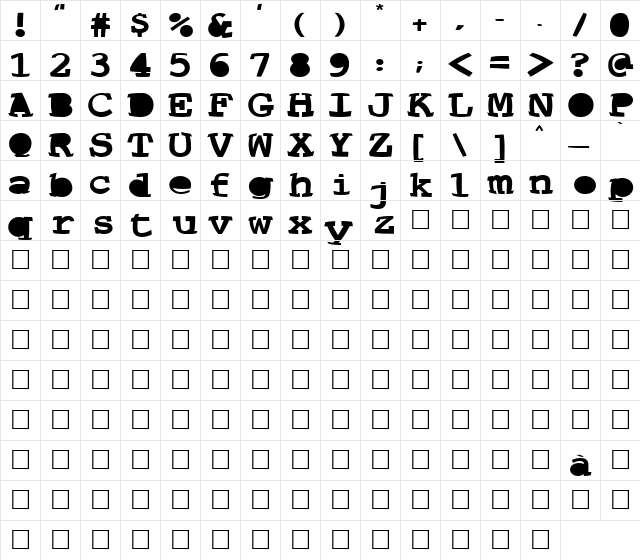
Batiscaf _bold
Design Context for Batiscaf Typeface
Batiscaf is a composed and adaptable typeface that performs quietly and consistently across a wide range of design contexts. The heavy weight commands attention and anchors typographic hierarchies.